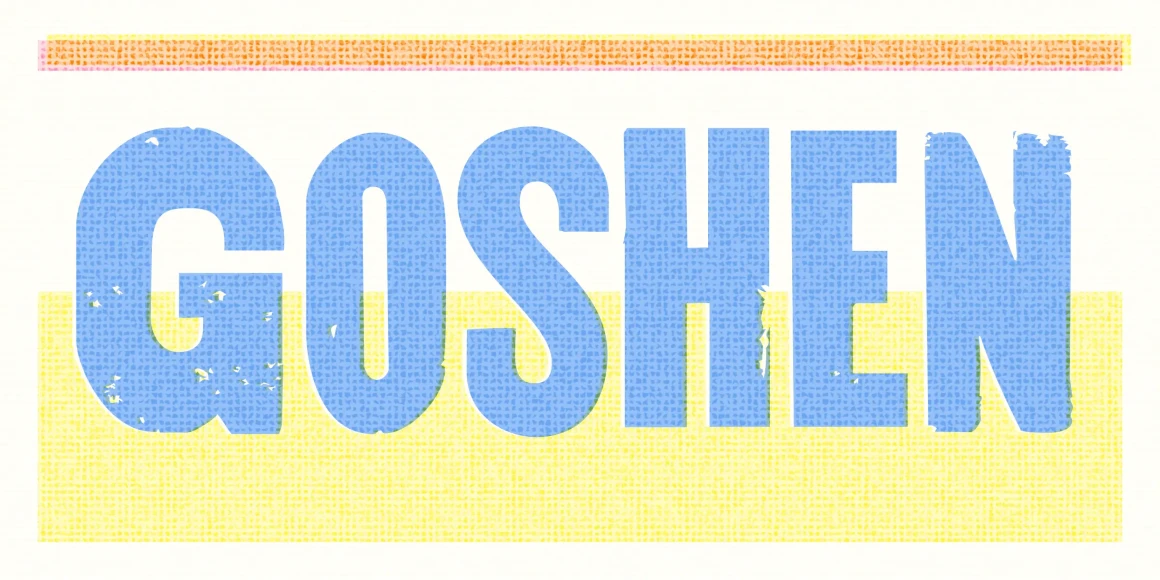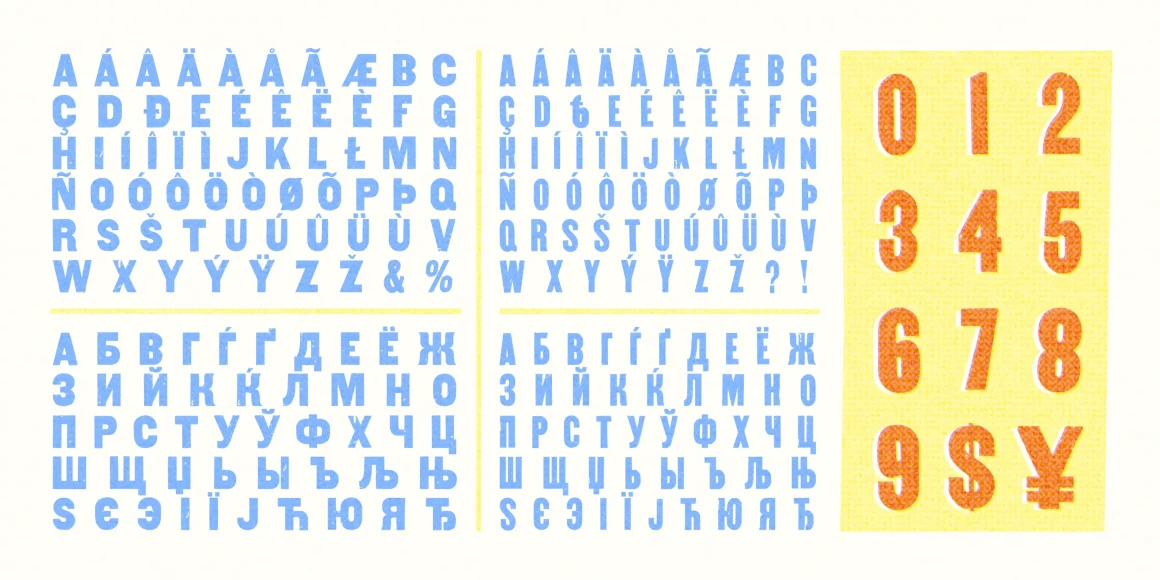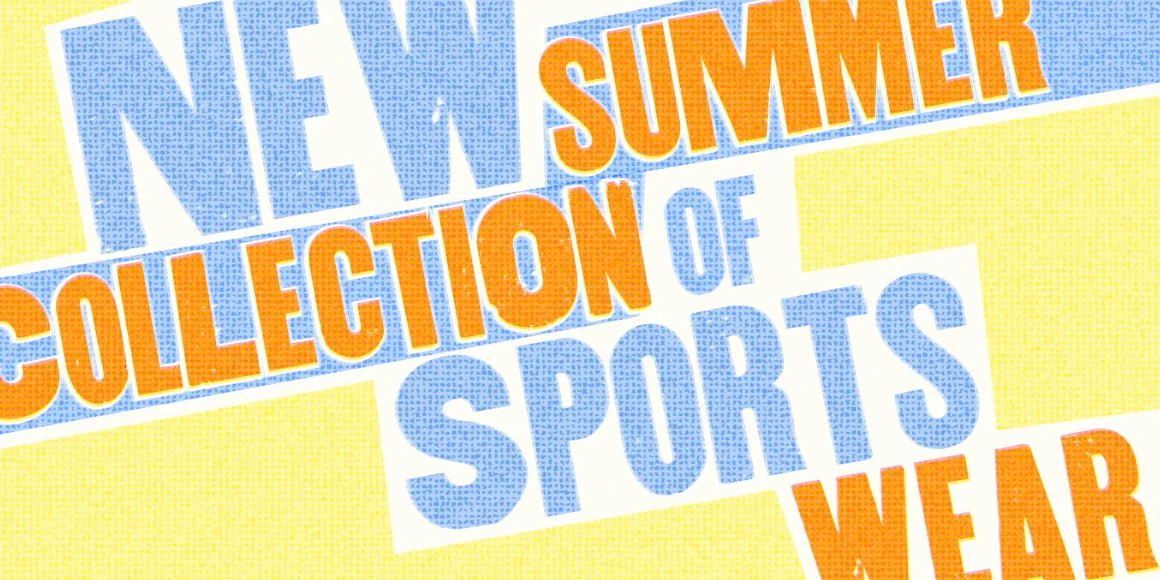
Goshen
Goshen is a no-nonsense all-caps display font from the BlincType Letterpress Fontpak, one of 8 letterpress-inspired typefaces from Blinc Publishing in St. Paul, MN. Its lowercase companion is Gideon.
This font is part of the BlincType Letterpress Fontpak, a collection of 8 letterpress-inspired typefaces from Blinc Publishing in St. Paul, MN. The pack includes Prospect Modern, the no-nonsense all-caps classic Goshen and its lowercase companion Gideon, the Cheltenham-esque Gomorrah and its grittier counterpart Sodom, the bouncy Golgotha, experimental Hamilton Offset, and Player Piano (inspired by vintage player piano stencil lettering).
Designed by Blinc Publishing & Chank Diesel